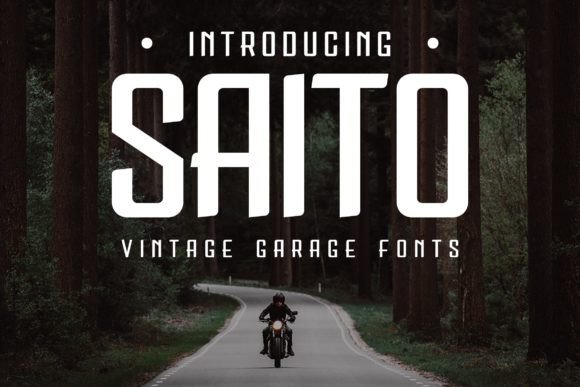
In a visual landscape teeming with competition, your brand's identity needs an edge that commands attention and leaves an imprint on the hearts of your audience. Enter Saito Font, a masculine font engineered to ignite the spirit of strength and power in your designs.
Crafted by the skilled hands of konstantinestudio, Saito Font is a sans serif masterpiece that exudes masculinity with every stroke. Its characters, bold and unyielding, stand tall like pillars of determination, ready to carry the weight of your brand's message.
With Saito Font as your ally, you'll effortlessly create designs that resonate with a raw, untamed energy. Picture your logos, posters, and social media graphics adorned with Saito's confident lines, capturing the attention of your audience and leaving them spellbound.
Saito Font's versatility extends beyond traditional branding. Its rugged charm lends itself to a myriad of creative projects, from vintage motorcycle branding to rugged outdoor gear. Unleash your imagination and explore the endless possibilities that await you with Saito Font as your creative companion.